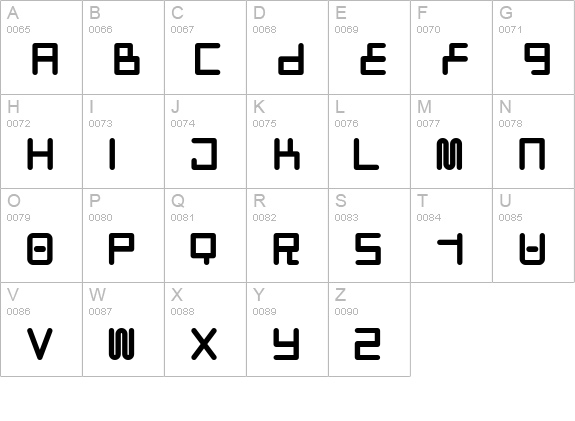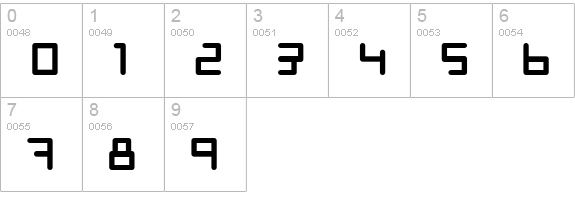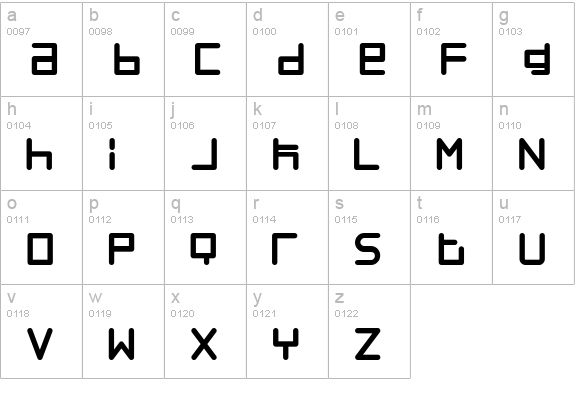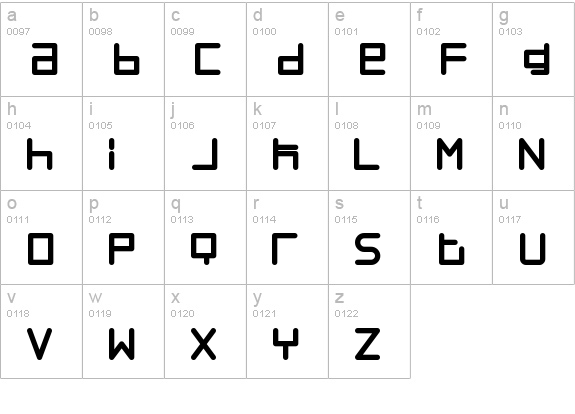
Neostyle Font Details
Neostyle font exudes sophistication and elegance with its modern yet timeless design. The sleek lines and balanced proportions of this typeface make it perfect for a wide range of design projects, from branding to editorial layouts. With its clean and contemporary aesthetic, Neostyle font effortlessly captures attention and conveys a sense of professionalism. What sets Neostyle font apart is not only its striking visual appeal but also its accessibility - it is available for free download at FontsMarket.com. This means that designers and creatives alike can easily access this high-quality font without any cost, making it a valuable addition to their toolkit. Whether you're working on a corporate identity, website design, or any other project that requires a touch of sophistication, Neostyle font is sure to elevate your work to the next level.